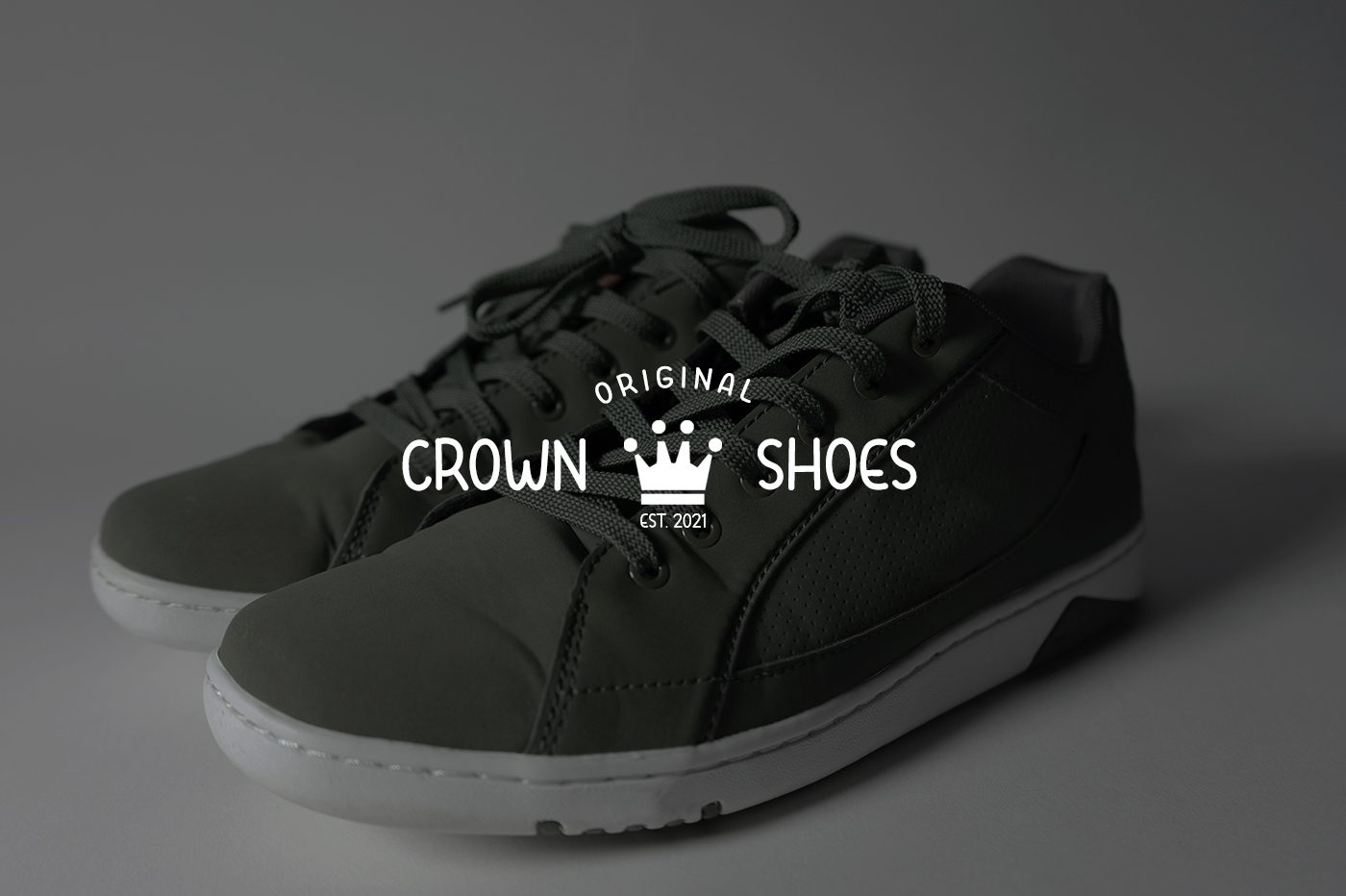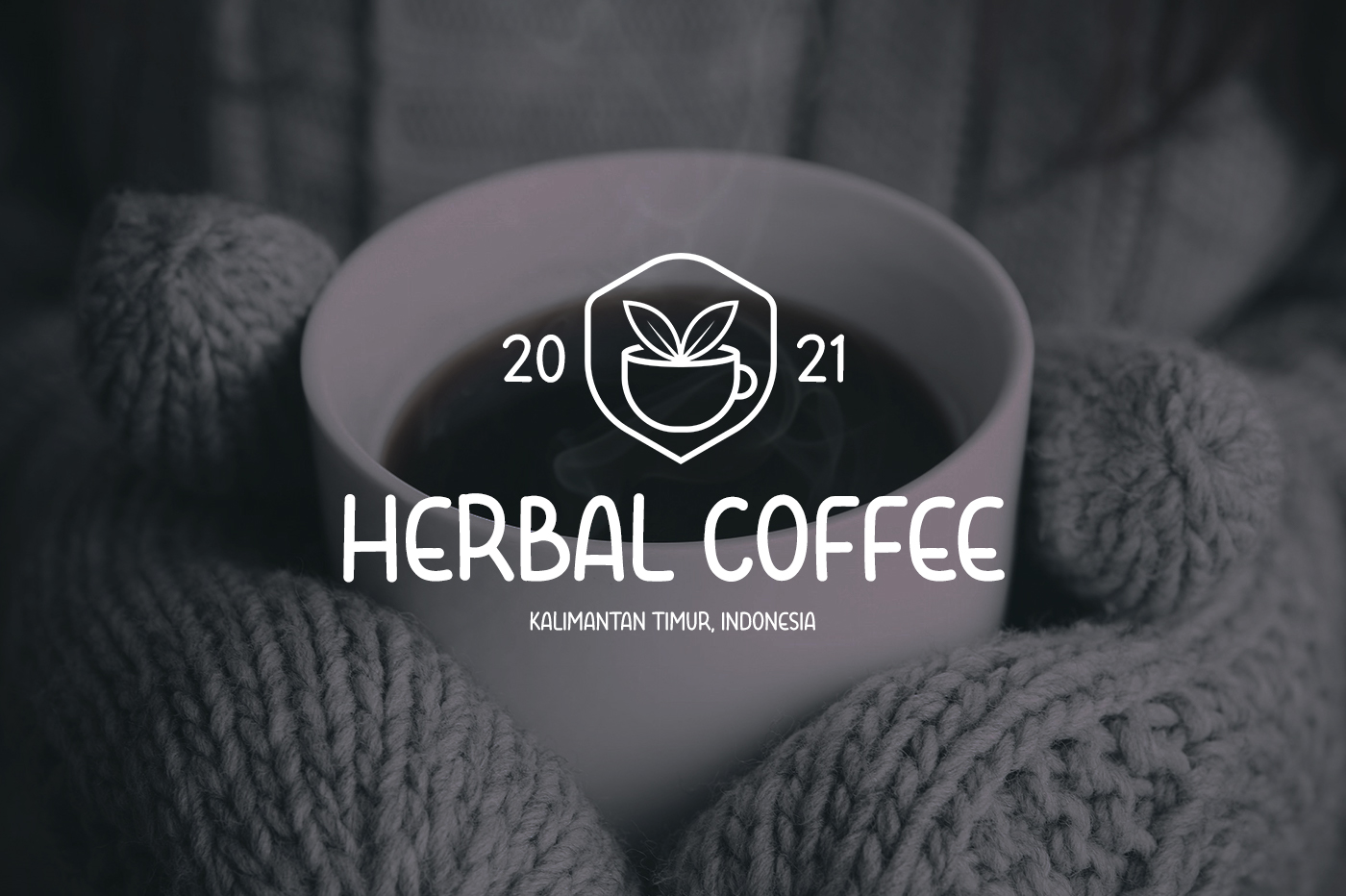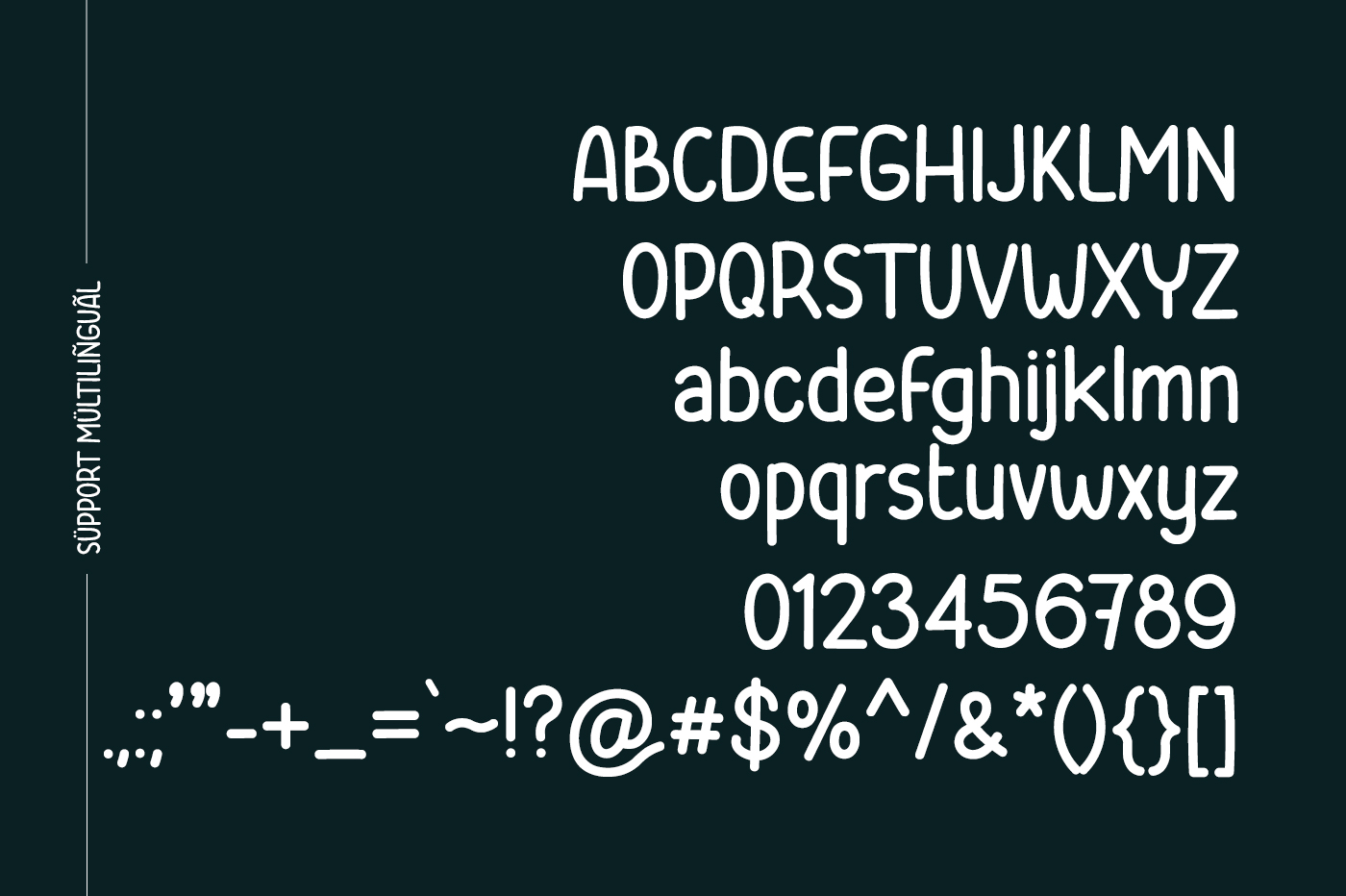
Small Memory Handwritten Font
This is an elegant and stylish handwritten font. Can be used for various purposes such as logos, wedding invitations, headings, t-shirts, letterhead, signage, labels, news, posters, badges and so much more.